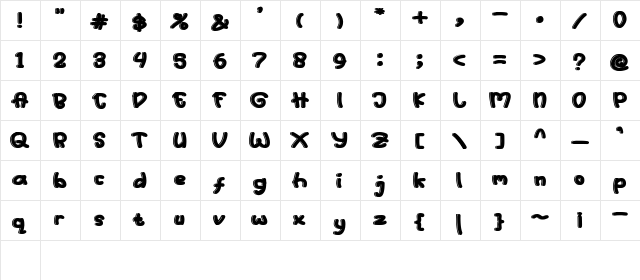
Just Kids Bold
Design Context for Just Kids Typeface
Just Kids has an approachable, lighthearted character — its loose, expressive forms are well-suited to children's content, casual branding, and fun-first design.
Font Pairing: Pairs well with a rounded or humanist sans for body copy, maintaining the friendly tone without relying on Just Kids to carry extended reading.
Pro Tip: Avoid using Just Kids for long passages of text — it works best for headlines, labels, and short calls to action.